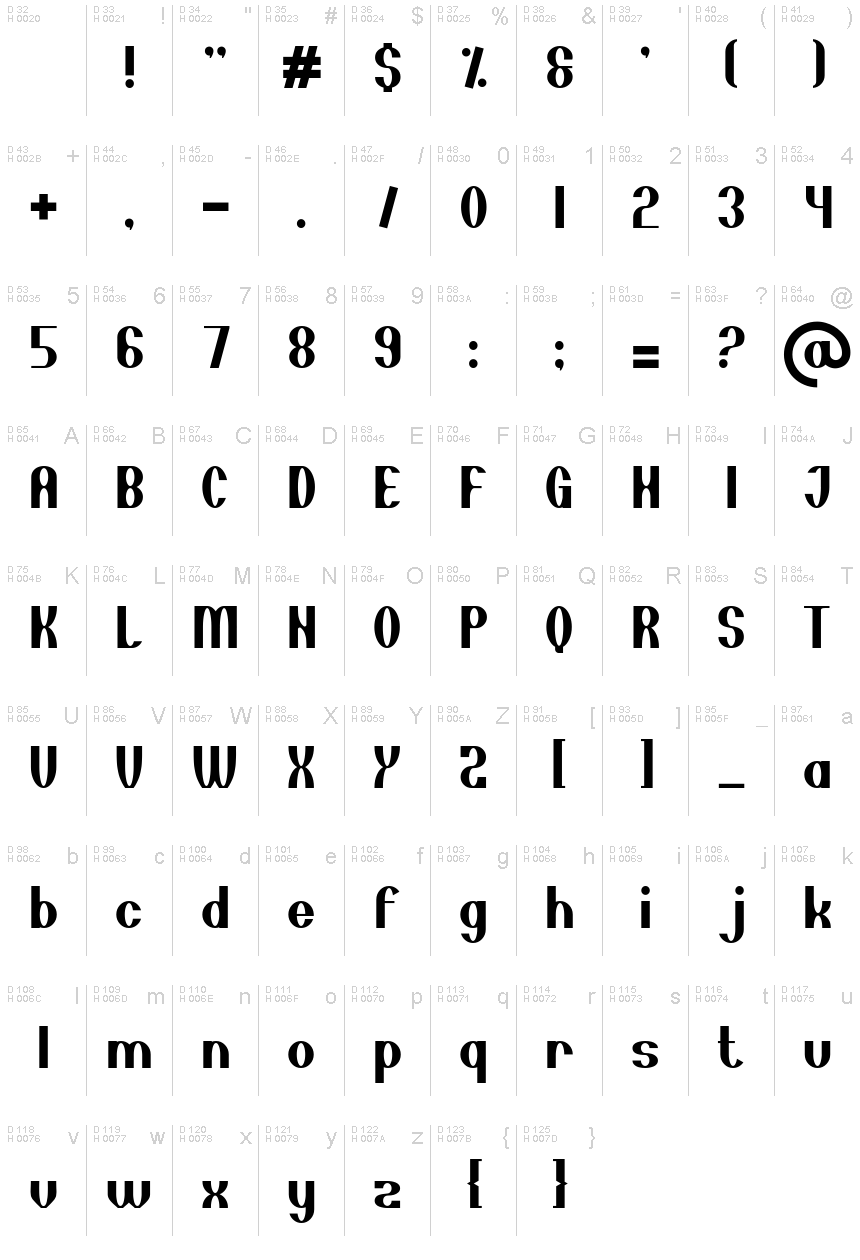
Baron Nonea
Baron Nonea font, designed by Gilang Ternadho, is a striking sans serif typeface that stands out with its bold, condensed design. This free font offers a modern and distinct look, perfect for making impactful statements in your projects. The condensed width adds an element of sophistication and elegance, allowing it to fit seamlessly into various design contexts.
Ideal for branding, headlines, and editorial use, Baron Nonea delivers clarity and style in equal measure. Its strong presence ensures readability while conveying a contemporary edge. Whether used in print or digital media, this font enhances visual appeal and attracts attention.